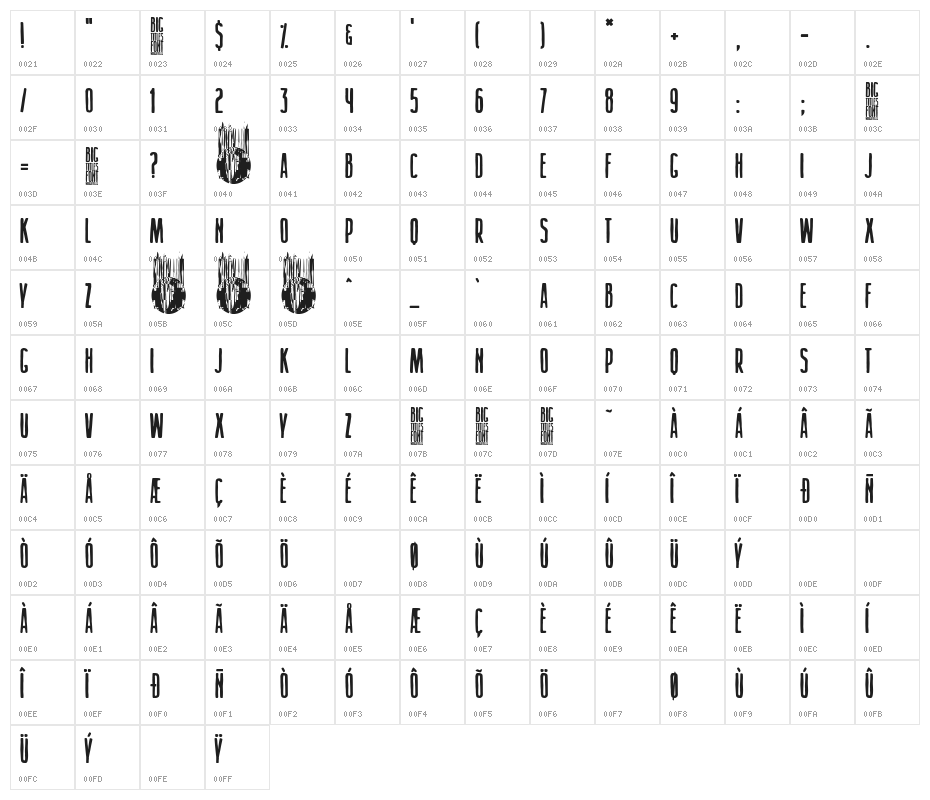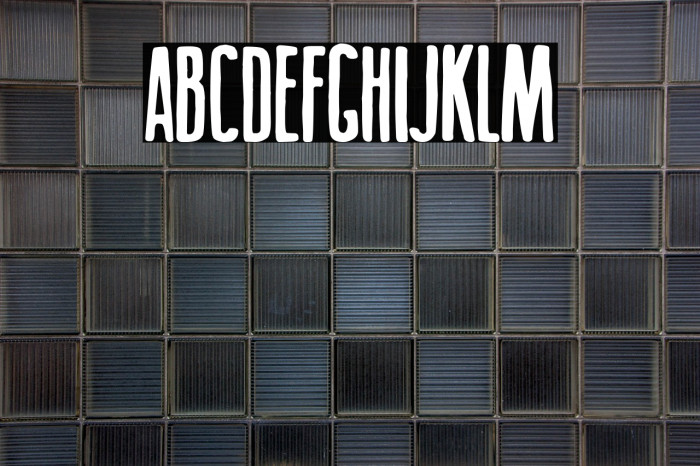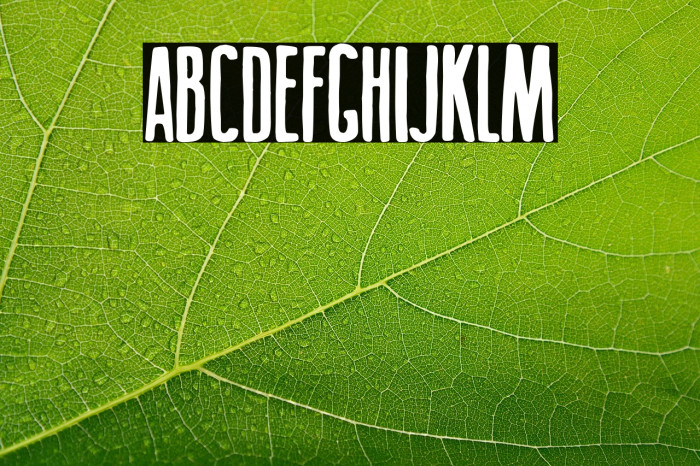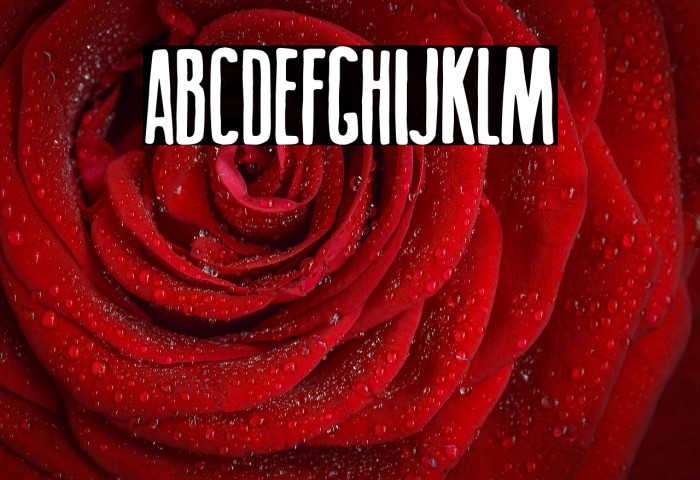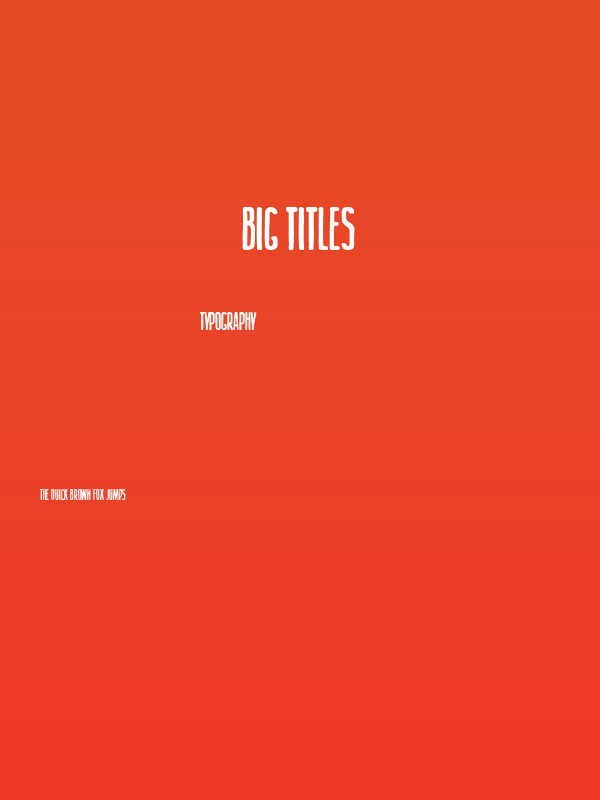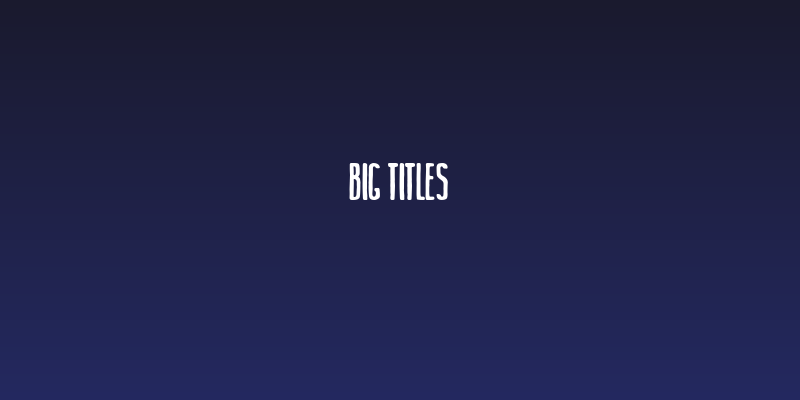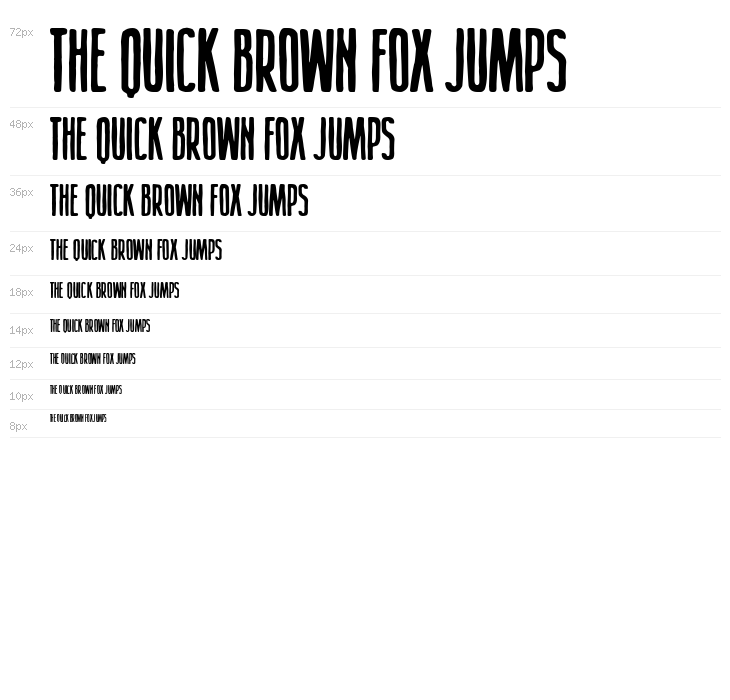
Big Titles Font
Big Titles Description
This font features a bold and impactful design, characterized by its tall and narrow letterforms. The strokes are thick and consistent, providing a strong visual presence ideal for headlines and titles. The uppercase and lowercase letters maintain a uniform style, with slight variations in width that add a dynamic feel. The numbers and special characters are crafted to match the overall aesthetic, ensuring a cohesive look across all text elements. The font's style is both modern and slightly retro, making it versatile for various design projects.